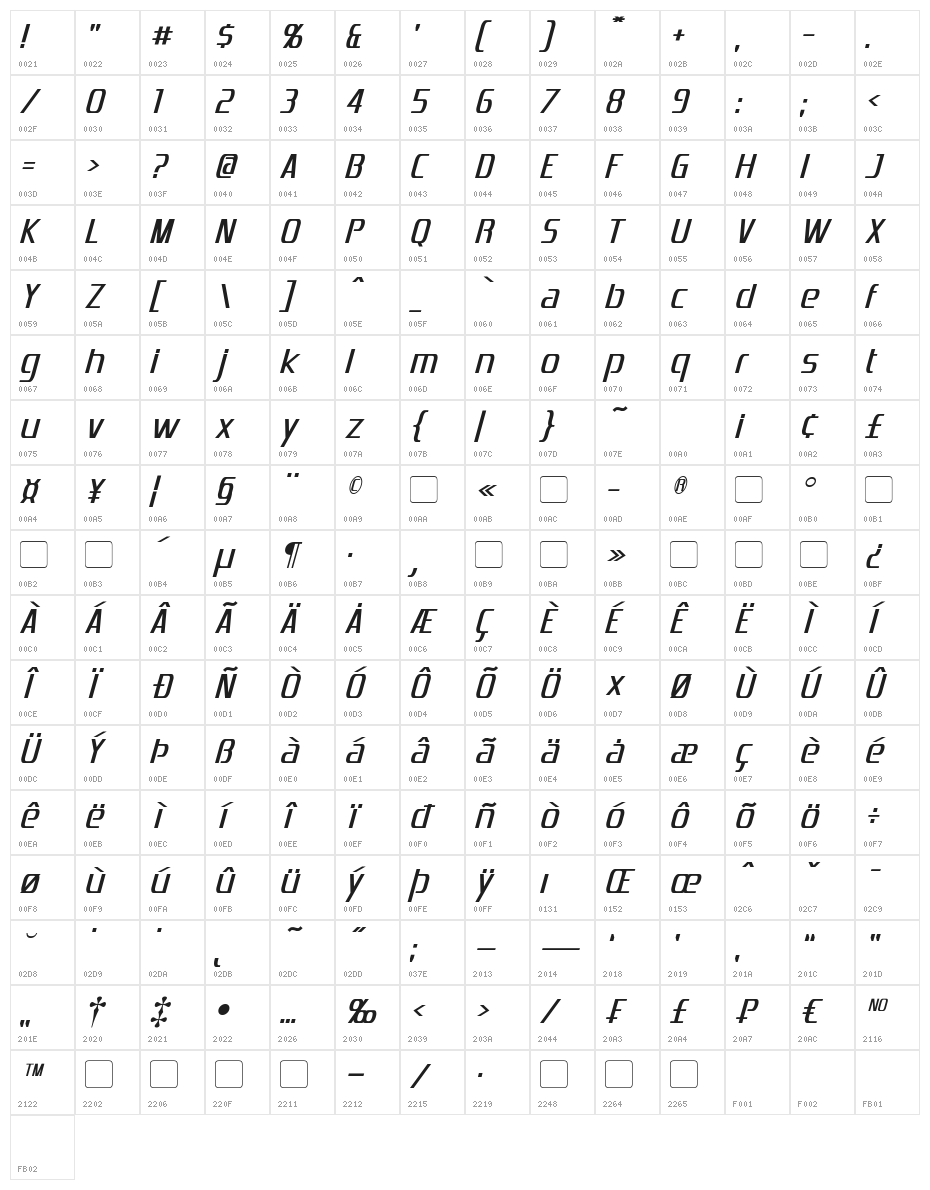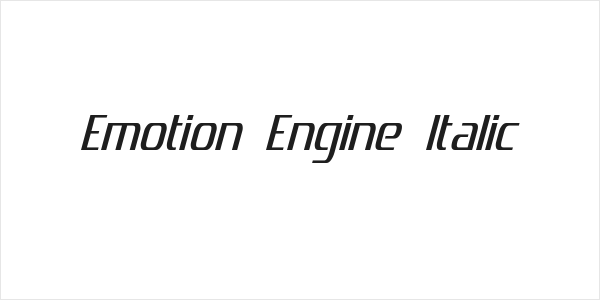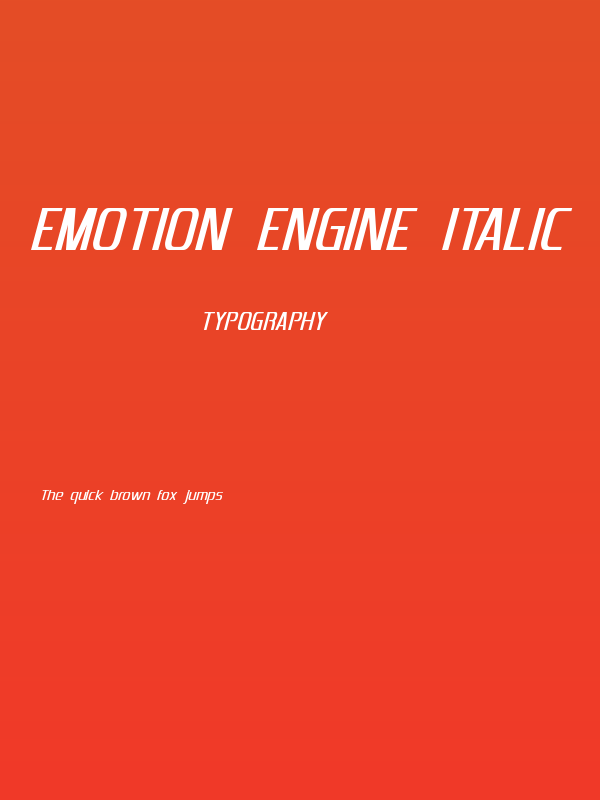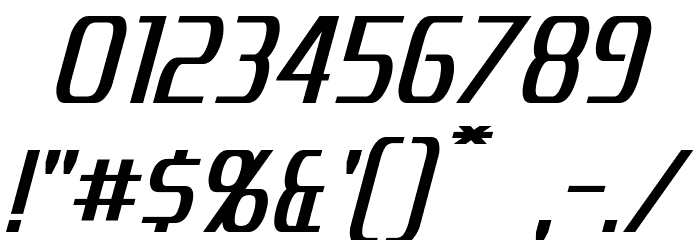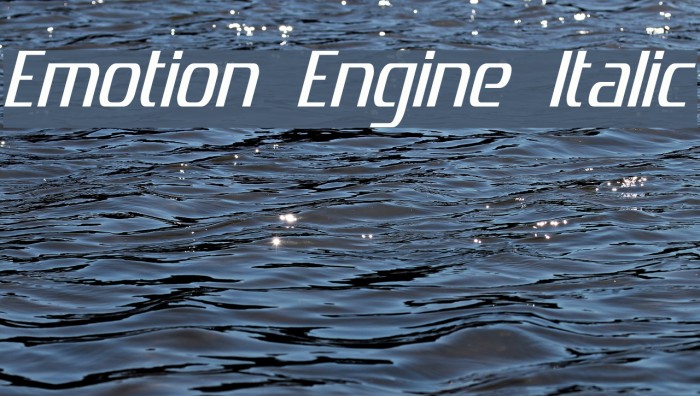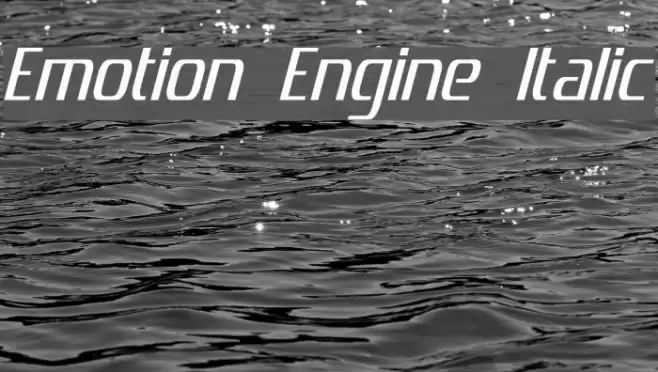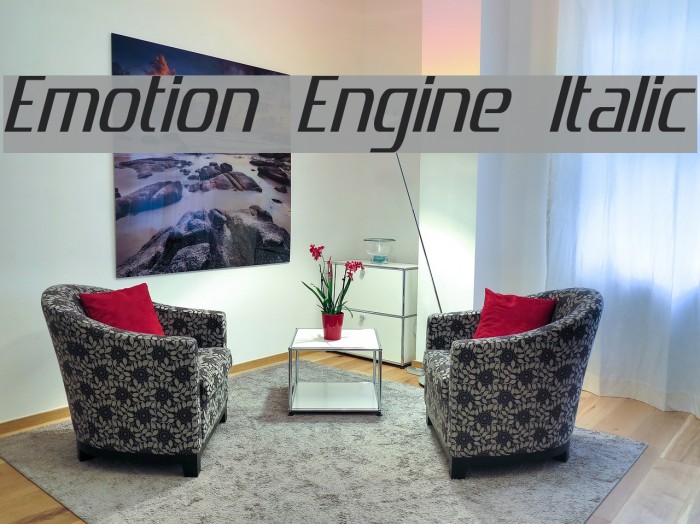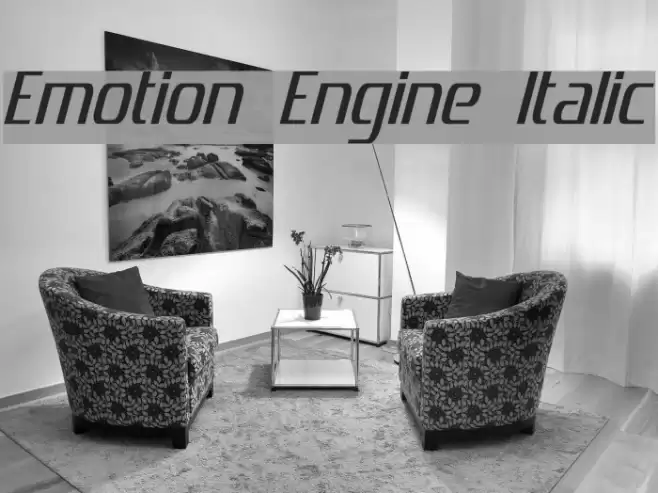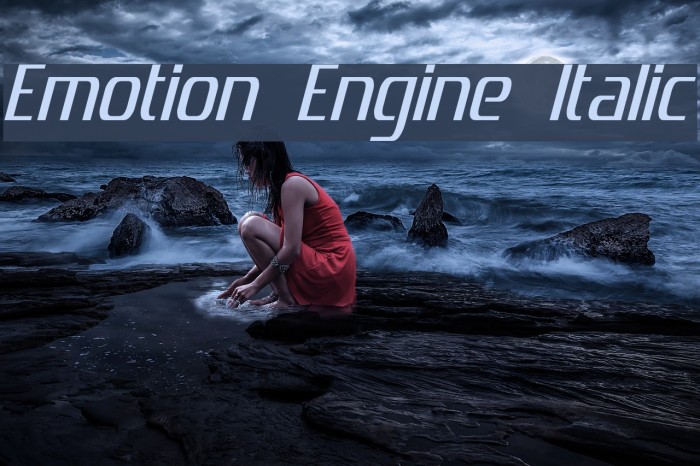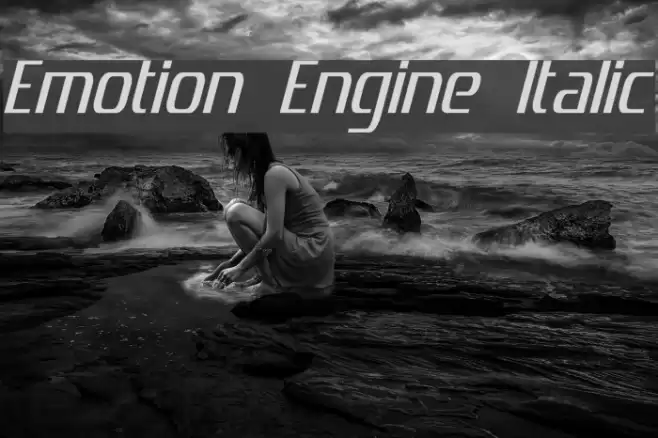
Emotion Engine Italic Font
| Anwendungsfall | Headlines, Logos, Digital Media |
| Vorgeschlagene Projekte | Ideal for branding, advertising, and digital media projects where a modern and dynamic look is desired. Suitable for use in sports branding, automotive industry materials, and tech-related content. |
Emotion Engine Italic